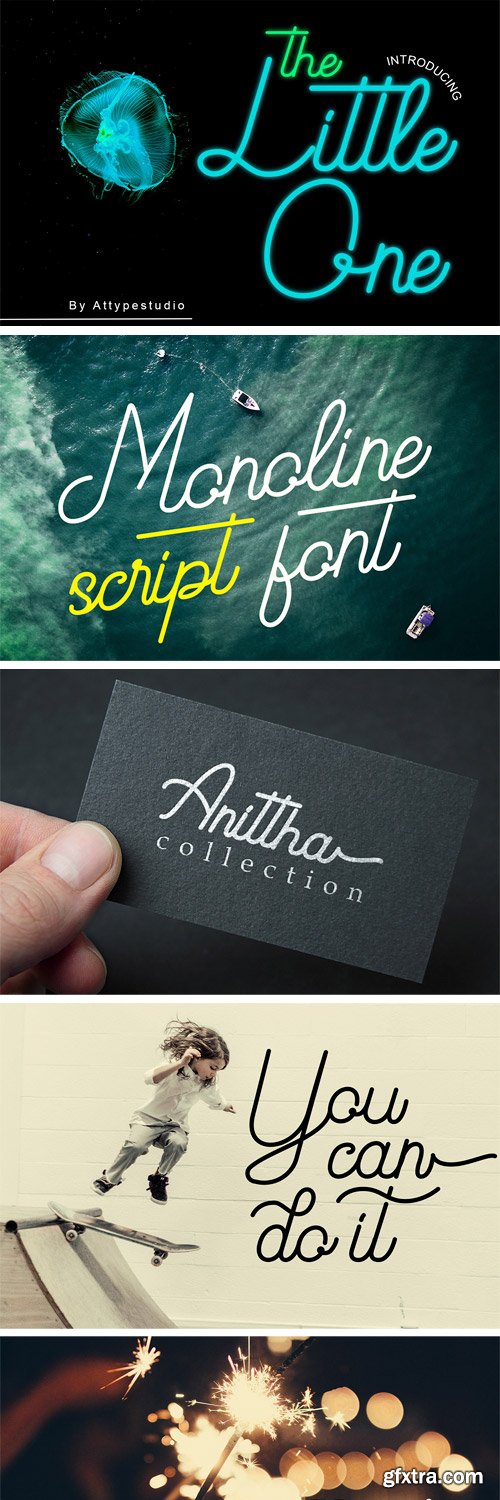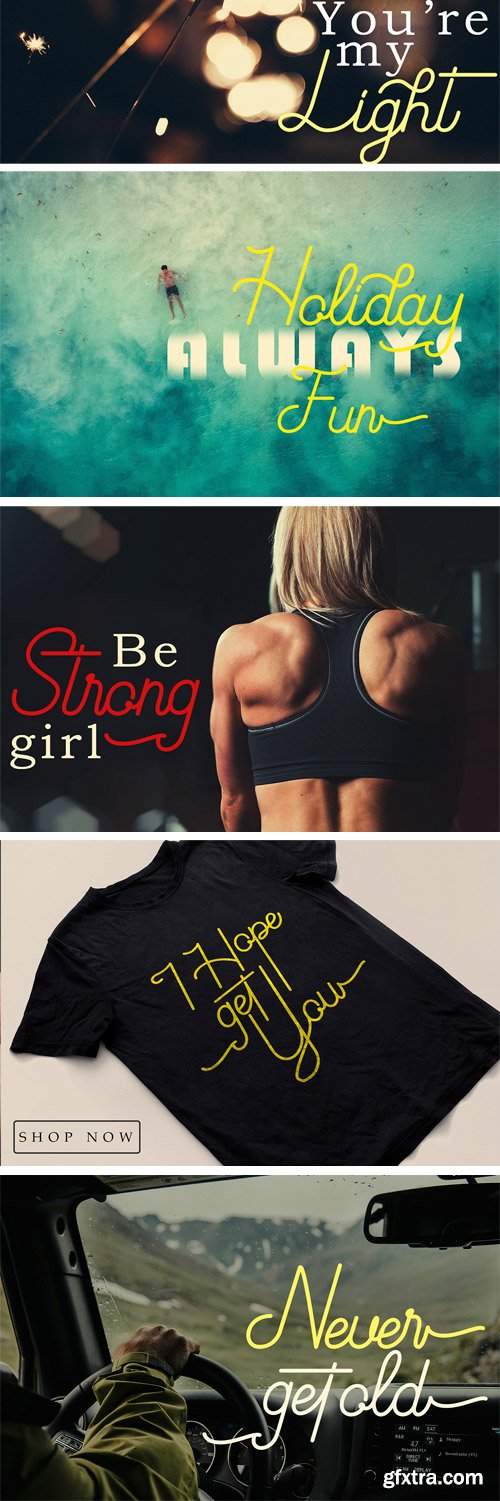
Introducing the Little One, a stylish monoline script style font. This beautiful script font offers your personal touch to your latest art project with fresh, curvy and beautiful look.